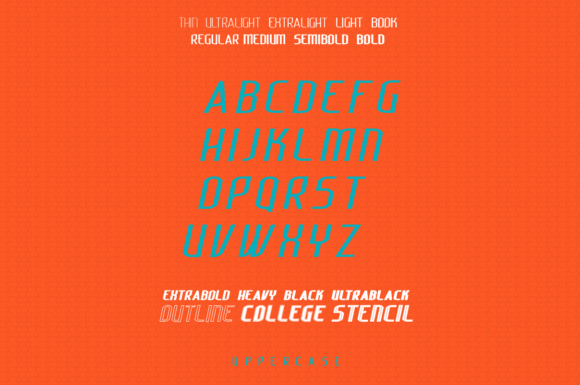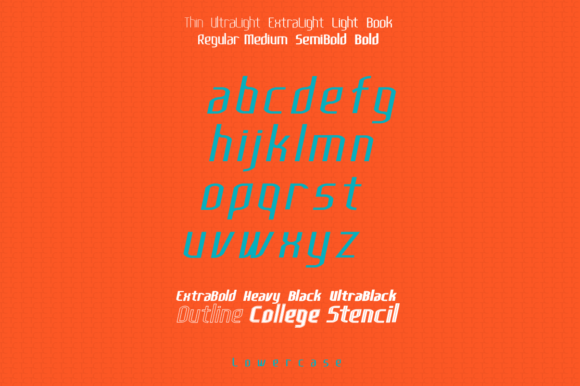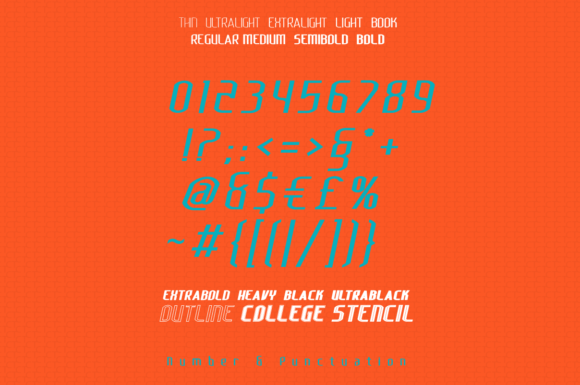
Introduction to Lakisa Font Font
Fonts play a crucial role in design, and the Lakisa Font font is a typeface that brings both character and versatility to any project. Whether you’re working on a branding project, a website, or a print design, the Lakisa Font font offers a unique style that can elevate your work.
Lakisa is a gorgeous sans serif with a modern and futuristic feel.
With its neat and balanced arrangement of letters, this typeface will look outstanding in both formal and non-formal designs .
Key Features of Lakisa Font Font
Why Choose Lakisa Font Font?
The Lakisa Font font is more than just a typeface – it’s a design tool that helps you communicate your message with style and clarity. Its unique character set and versatile design make it suitable for a wide range of applications, from elegant invitations to bold headlines.
With its carefully crafted letterforms and balanced proportions, the Lakisa Font font ensures readability and visual appeal across all mediums.
What makes Lakisa Font font special?
The Lakisa Font font stands out with its unique design, exceptional readability, and versatility across various design applications.